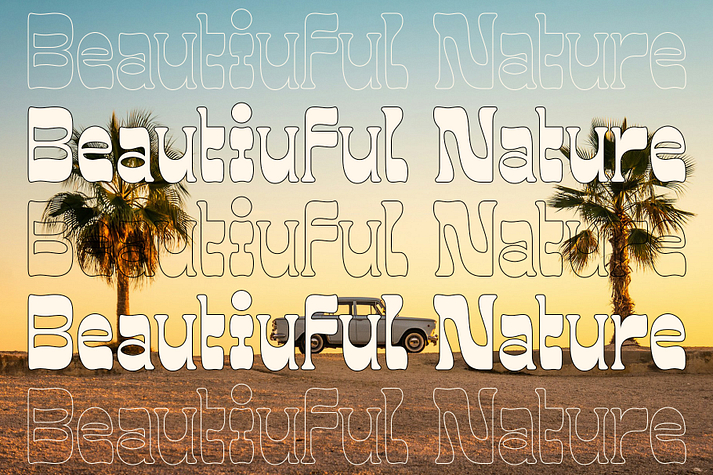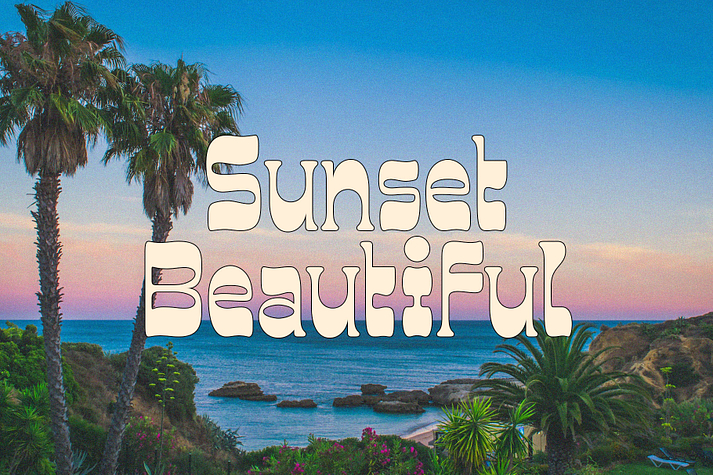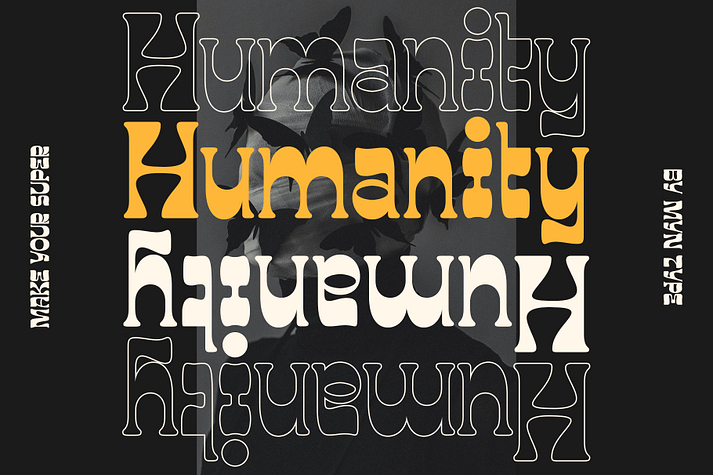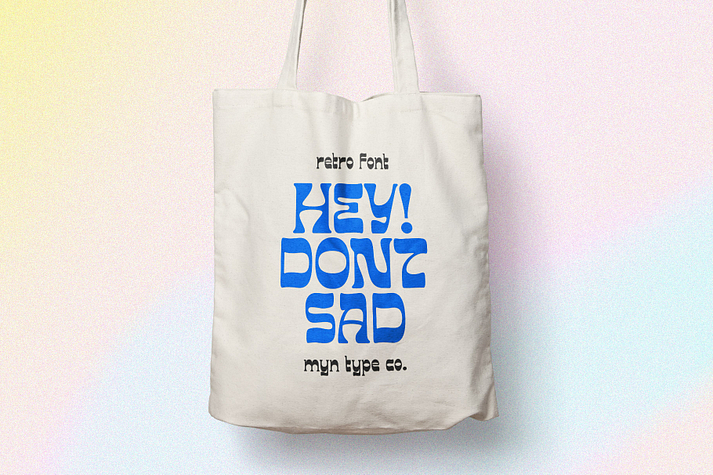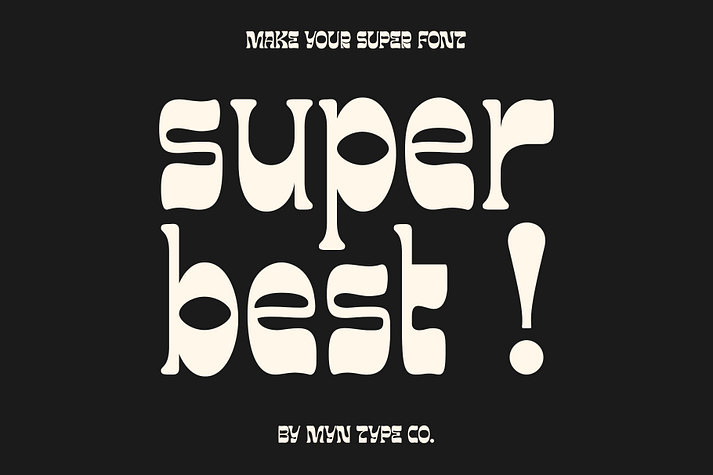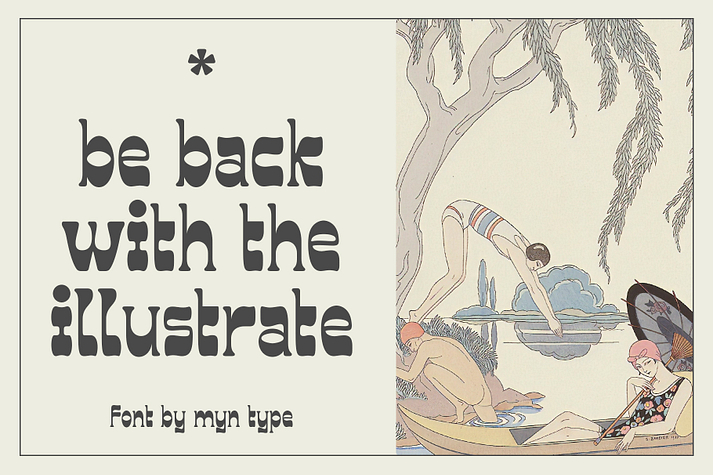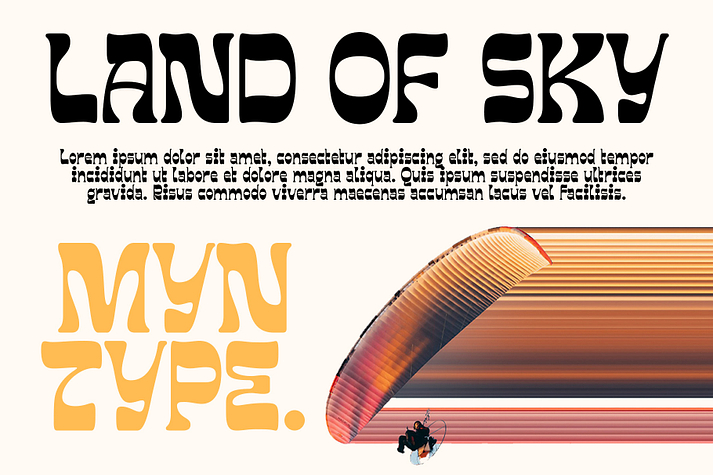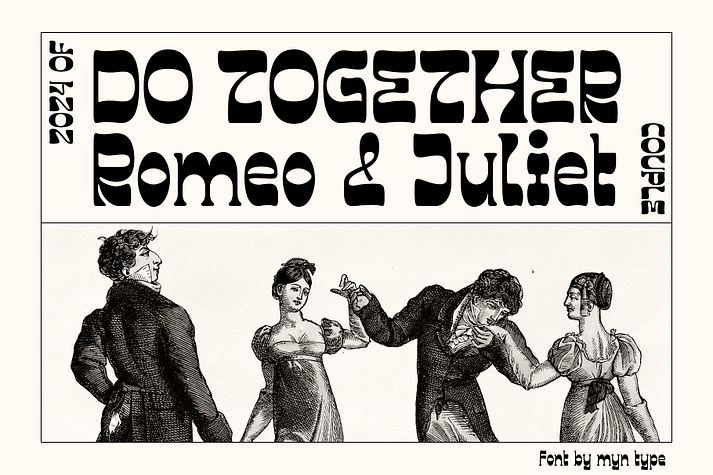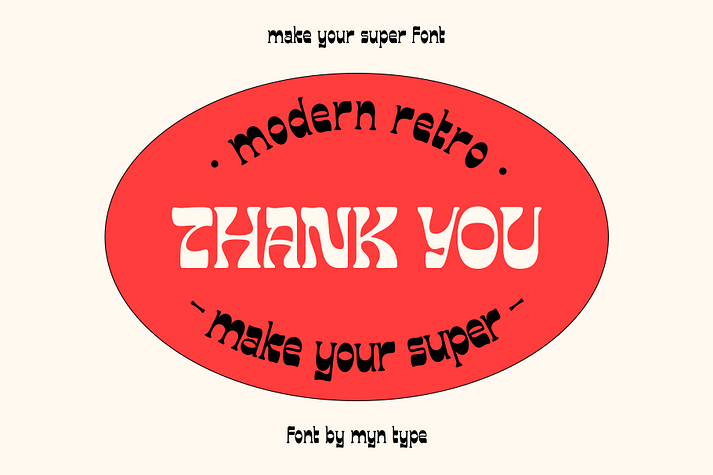
Make Your Super
Make Your Super is a font family published by Myn Type.
Make Your Super!! ⚡ is the Make Your Vol.2
An typeface that draws with touch of groovy, unique and fun.This style of font captures the essence of vintage print and design, invoking a sense of fun, beautiful and Interesting.